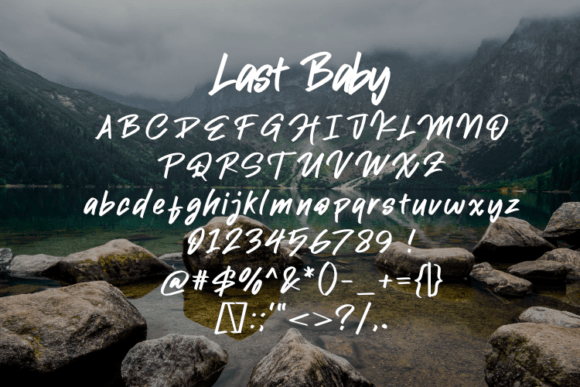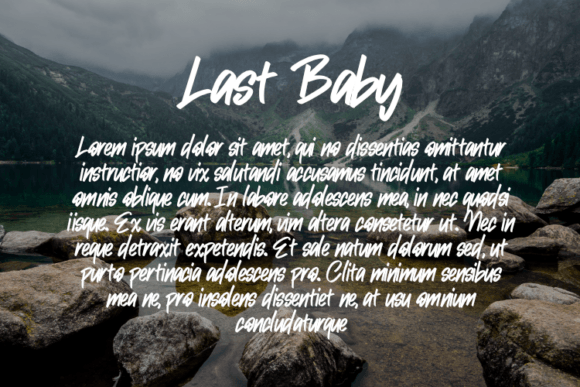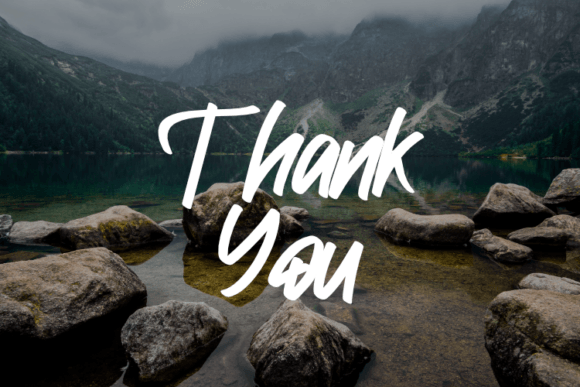
Introduction to Last Baby Font
Introducing Last Baby, a strikingly versatile font perfect for infusing creativity and style into clothing designs, t-shirt prints, and other merchandise.
Key Features of Last Baby Font
Why Choose Last Baby Font?
Last Baby Font offers exceptional quality and versatility, making it a valuable addition to your design toolkit. Whether you’re creating for personal projects or commercial use, Last Baby Font delivers professional results.